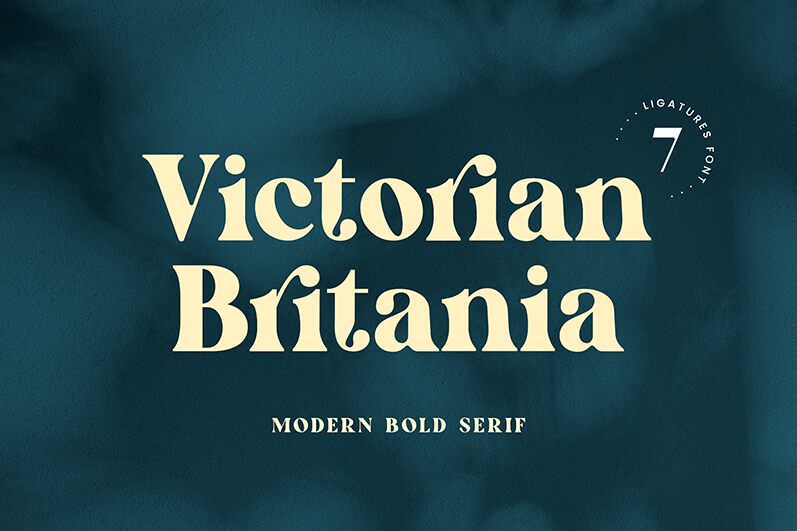
VictorianBritania
Victorian Britannia, a modern serif font crafted by UI Creative, exudes a captivating blend of tradition and innovation. Its bold strokes and refined serifs evoke a sense of timeless elegance, while the subtle contemporary touches lend a touch of sophistication. The font's balanced proportions and harmonious character forms create a visually striking and visually appealing aesthetic, making it a compelling choice for a variety of design applications.
This versatile font can seamlessly adapt to a wide range of projects, from high-end editorial layouts and sophisticated branding to impactful headlines and elegant signage. Its strong presence and distinctive personality make it an excellent selection for projects that require a touch of classic charm with a modern edge, allowing designers to craft compelling and memorable visual narratives.